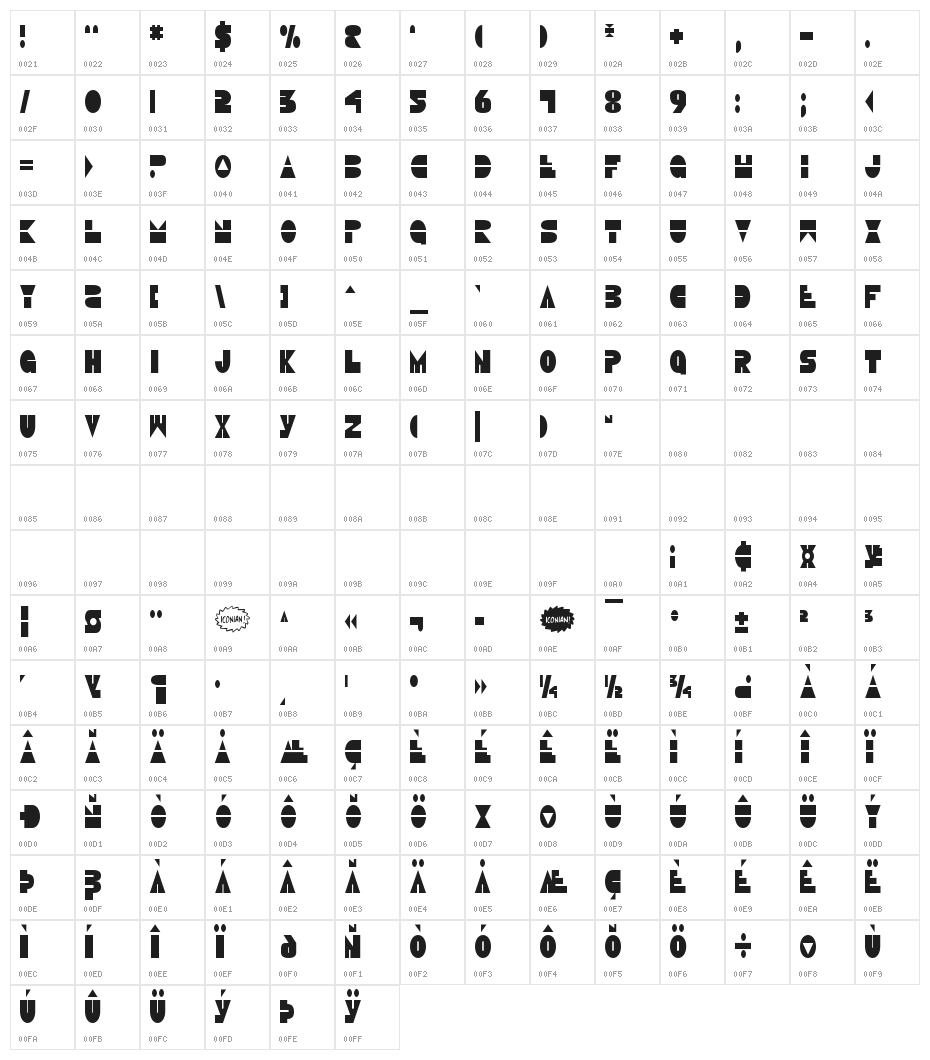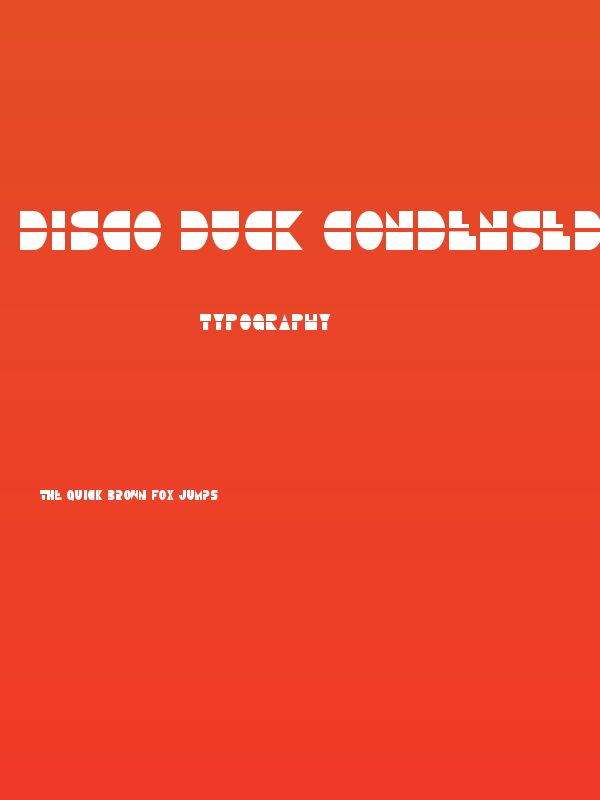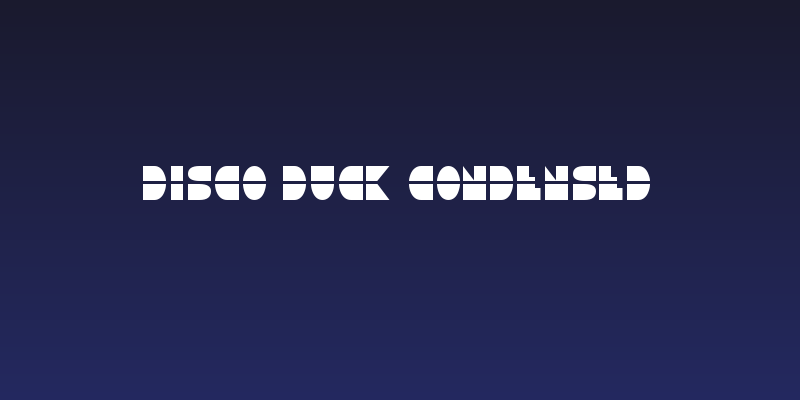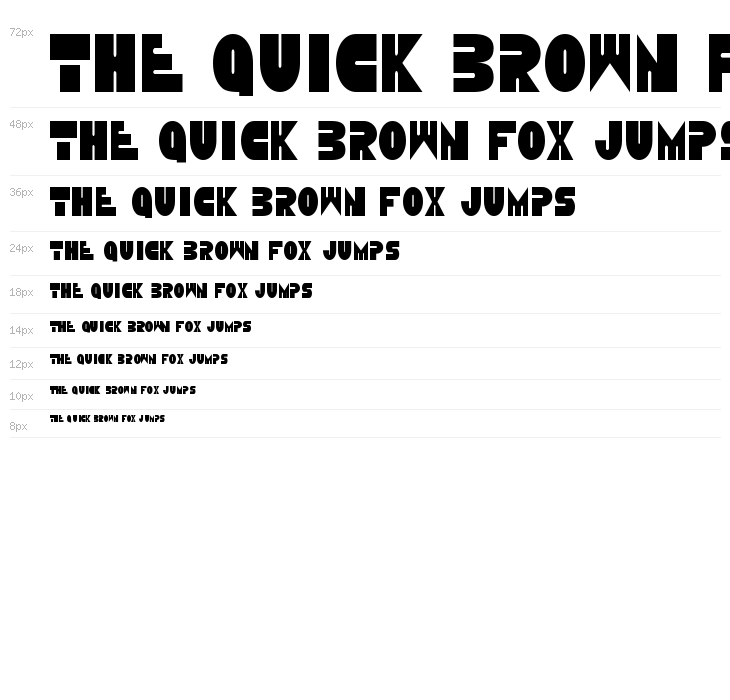
Disco Duck Condensed Font
Disco Duck Condensed Description
This font features a bold, geometric style with a strong emphasis on angular shapes and sharp edges. The characters are constructed with a mix of solid blocks and negative space, creating a striking visual impact. The uppercase letters are particularly distinctive, with a futuristic and modern aesthetic. The numbers and special characters maintain the same bold and geometric design, ensuring consistency throughout. This font is ideal for projects that require a strong visual presence and a contemporary feel.